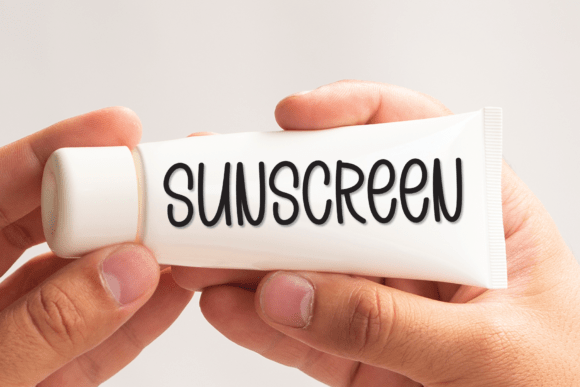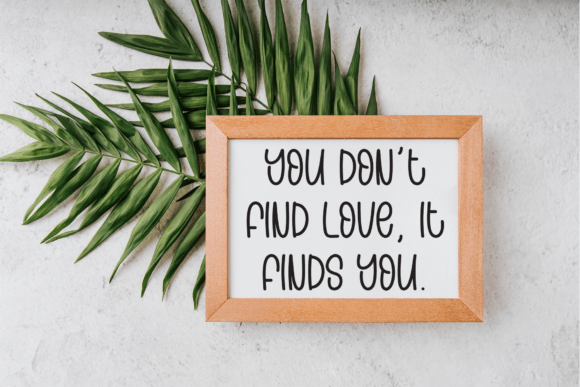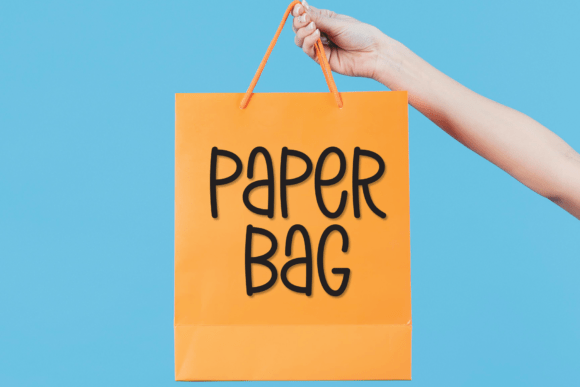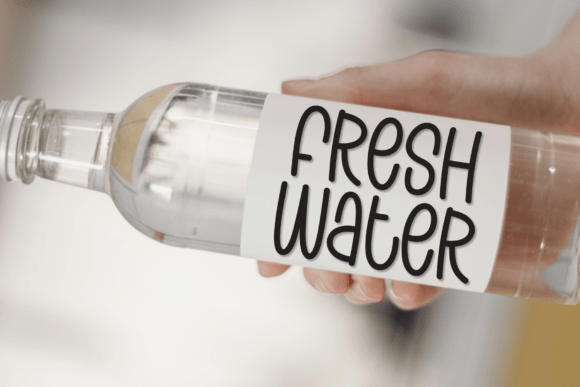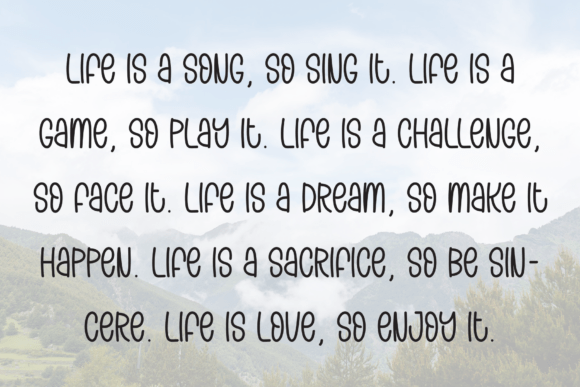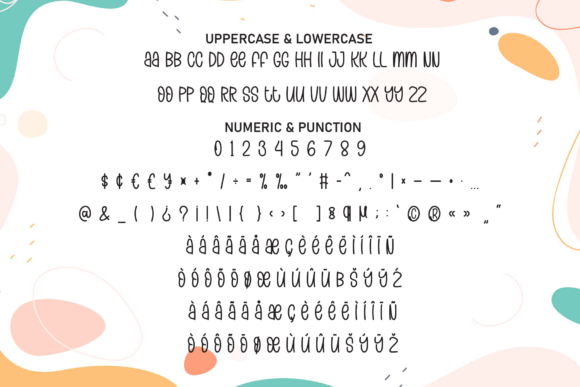
Introducing Whimsy Whisper: The Good Vibes Font That Brings Joy to Your Designs
Welcome to the world of Whimsy Whisper, a refreshingly charming handwritten font that radiates both friendliness and delight. In the realm of typography, a font can make or break the aesthetic of a design. That’s where Whimsy Whisper comes in – a beautifully crafted Good Vibes Font that adds a dash of fun and sophistication to any project. Whether you’re a designer, crafter, or simply someone who loves to create, this enchanting font is sure to capture your heart and inspire your imagination.
The Playful Allure of Whimsy Whisper
The playful allure of Whimsy Whisper is perfect for adding a touch of whimsy to your wedding invitations, greeting cards, or any designs that could use a sprinkle of joy. This delightful font is carefully crafted to evoke a sense of friendliness and approachability, making it ideal for projects that require a personal touch. With Whimsy Whisper, you can transform ordinary text into a mesmerizing masterpiece that stands out from the crowd, all while maintaining a cozy, heartwarming vibe.
Sweet Sophistication for Your Designs
Brimming with sweet sophistication, Whimsy Whisper effortlessly turns any ordinary text into a work of art. This charming font features flowing lines, gentle curves, and a dash of playfulness, making it perfect for designs that require a touch of elegance and whimsy. Whether you’re creating wedding invitations, party decorations, or social media graphics, Whimsy Whisper is the perfect choice for adding a sprinkle of joy and sophistication to your designs.
Why Choose Whimsy Whisper?
So, why choose Whimsy Whisper over other fonts? Here are just a few reasons why this Good Vibes Font stands out:
- Unique and eye-catching: Whimsy Whisper is a one-of-a-kind font that adds a touch of personality to your designs.
- Versatile: This font is perfect for a wide range of projects, from wedding invitations to social media graphics.
- Easy to read: Despite its playful nature, Whimsy Whisper is surprisingly easy to read, making it perfect for body text and headlines.
- Customizable: With Whimsy Whisper, you can experiment with different colors, textures, and styles to create a unique look that suits your brand or project.
Tips for Using Whimsy Whisper in Your Designs
Now that you’ve fallen in love with Whimsy Whisper, here are some tips for incorporating this Good Vibes Font into your designs:
- Pair with bold fonts: Combine Whimsy Whisper with bold fonts for a striking contrast that adds visual interest to your designs.
- Experiment with colors: Whimsy Whisper looks stunning in a range of colors, from soft pastels to bold brights.
- Add textures and patterns: Mix and match textures and patterns to add depth and visual interest to your designs.
- Keep it simple: Don’t be afraid to keep things simple and let the beauty of Whimsy Whisper shine through.
In conclusion, Whimsy Whisper is a charming Good Vibes Font that brings joy, sophistication, and whimsy to your designs. With its playful allure, sweet sophistication, and versatility, this font is perfect for designers, crafters, and creatives who want to add a touch of personality to their projects. Whether you’re creating wedding invitations, greeting cards, or social media graphics, Whimsy Whisper is the perfect choice for spreading good vibes and making your designs stand out. So why wait? Dive into the world of Whimsy Whisper today and discover the magic of this delightful Good Vibes Font!